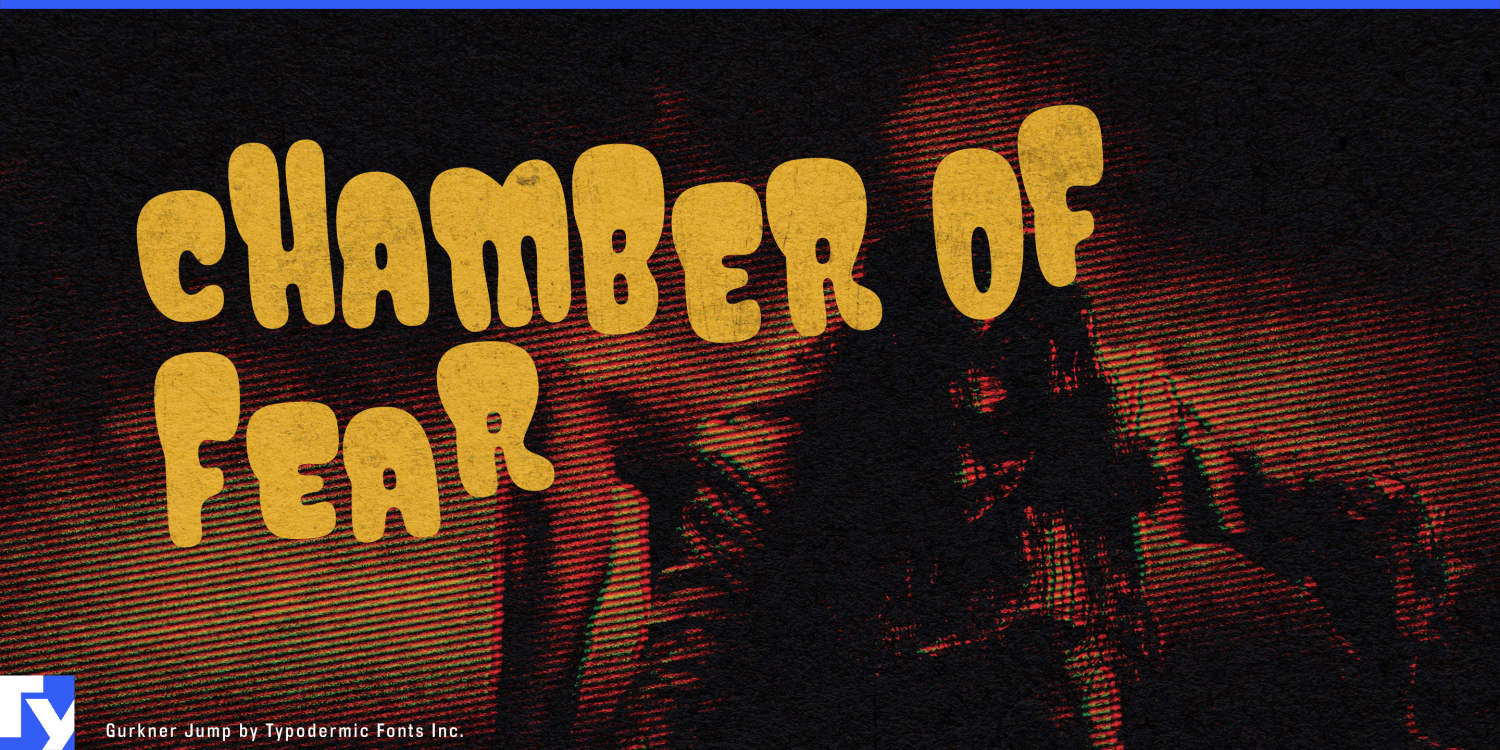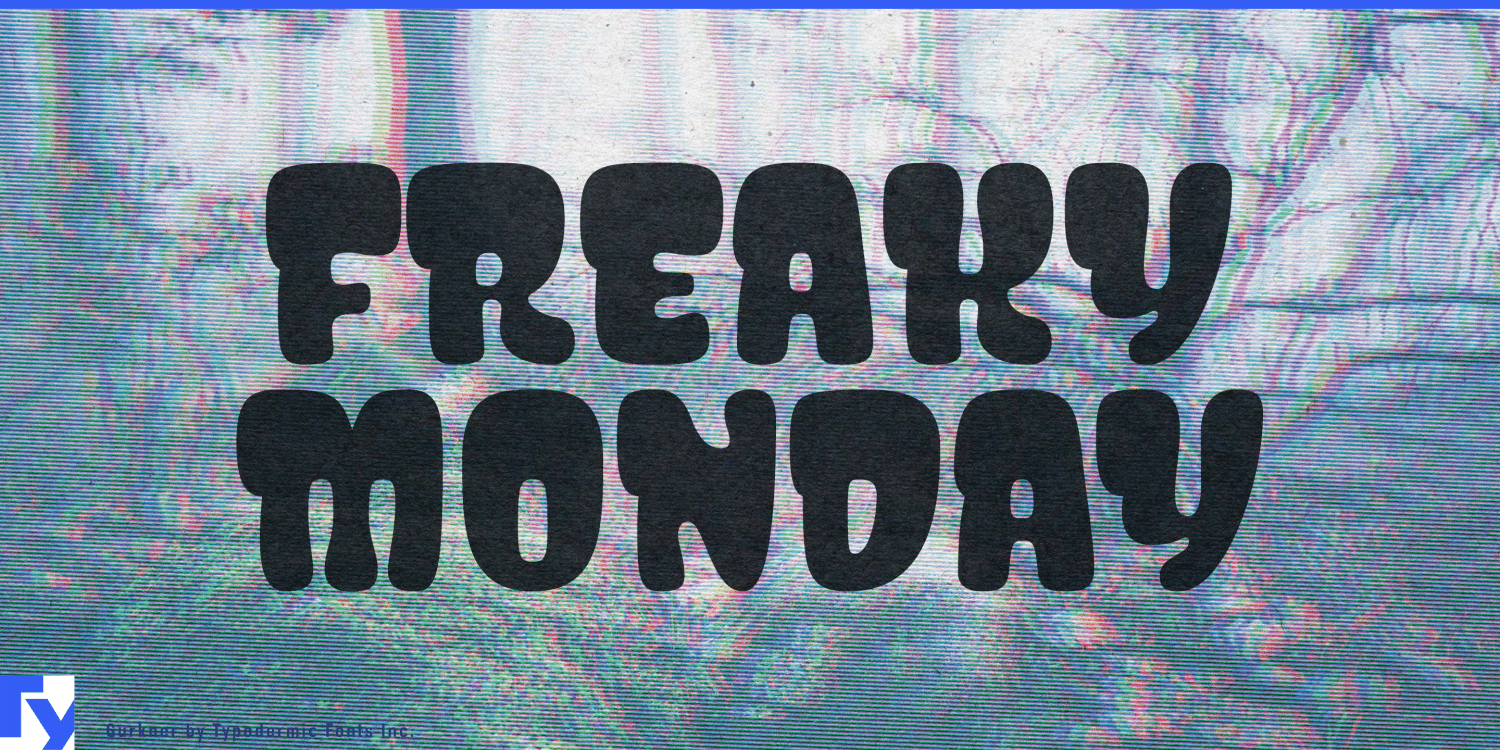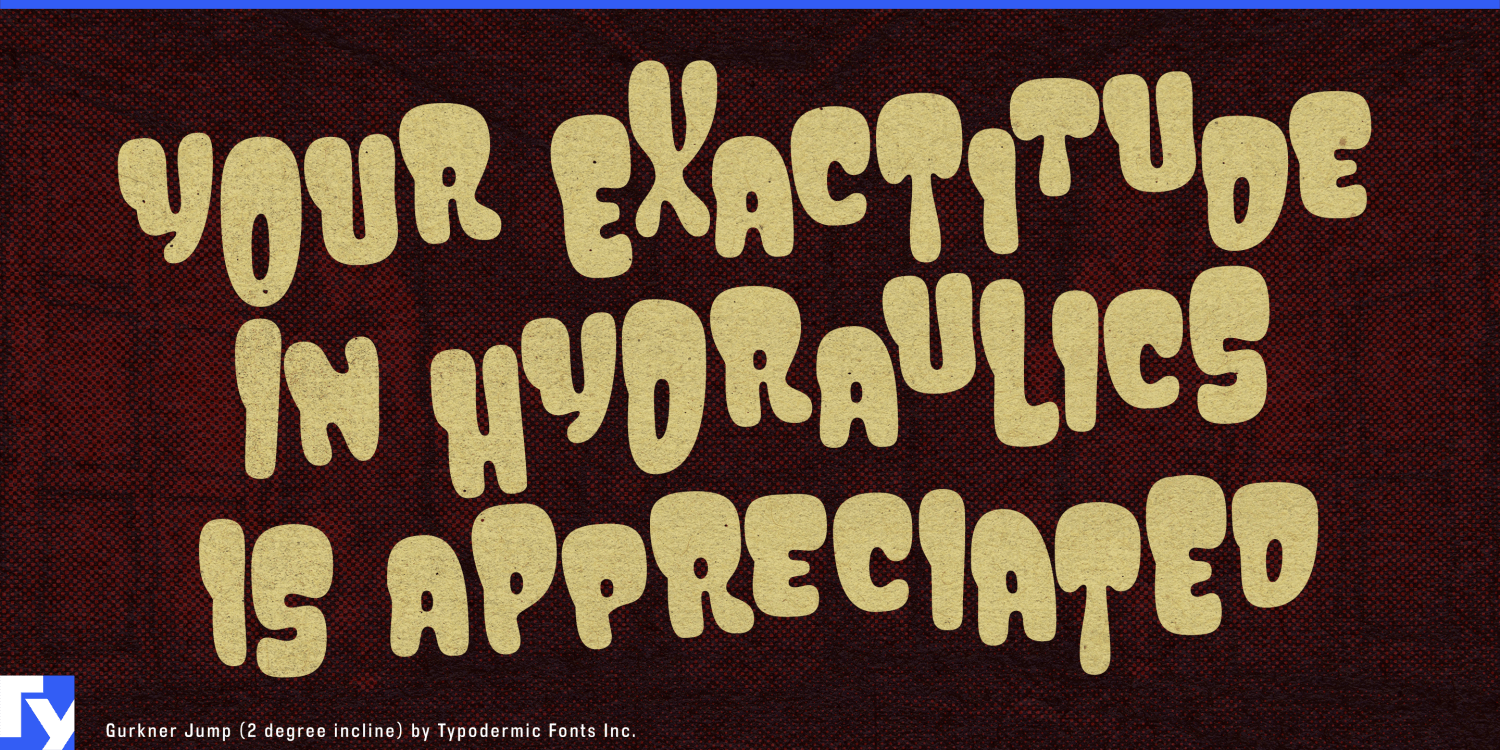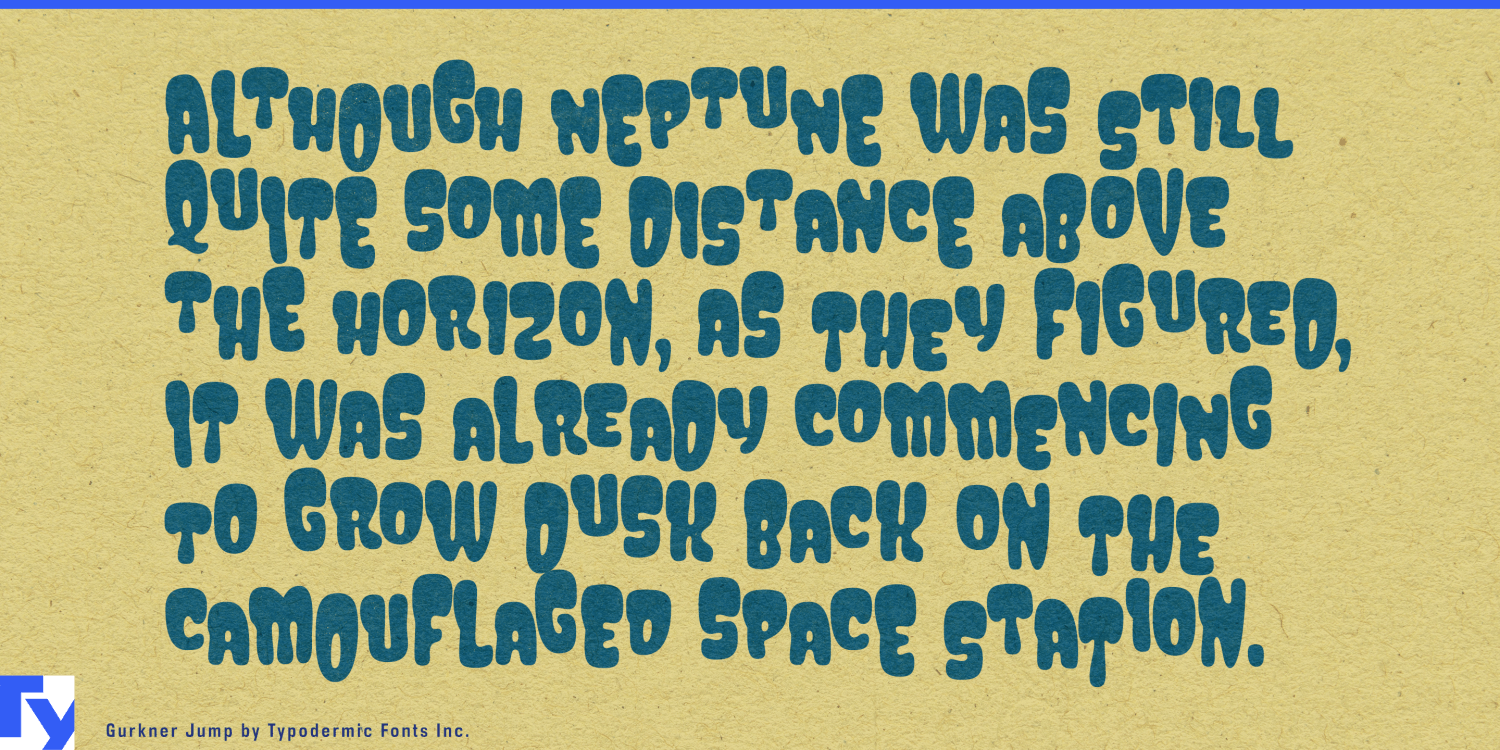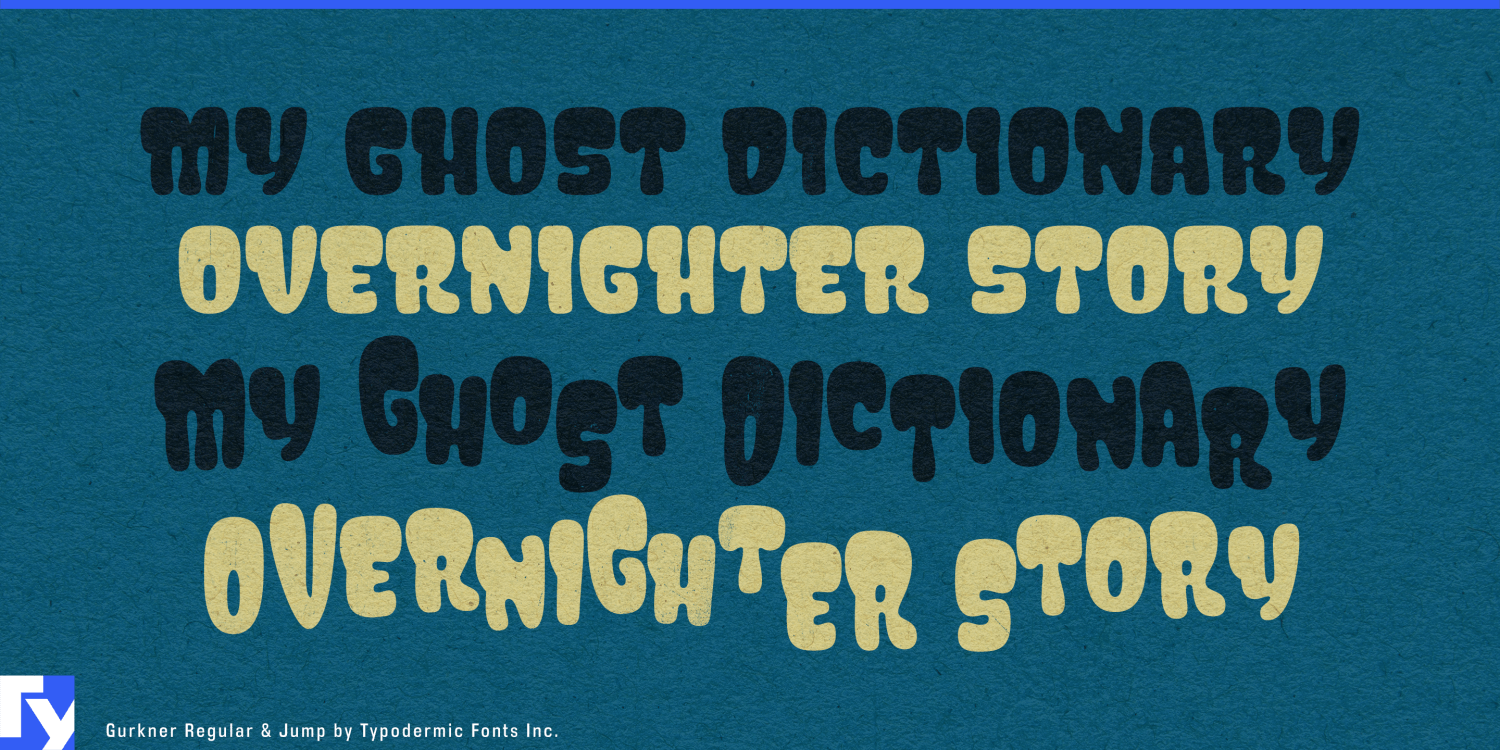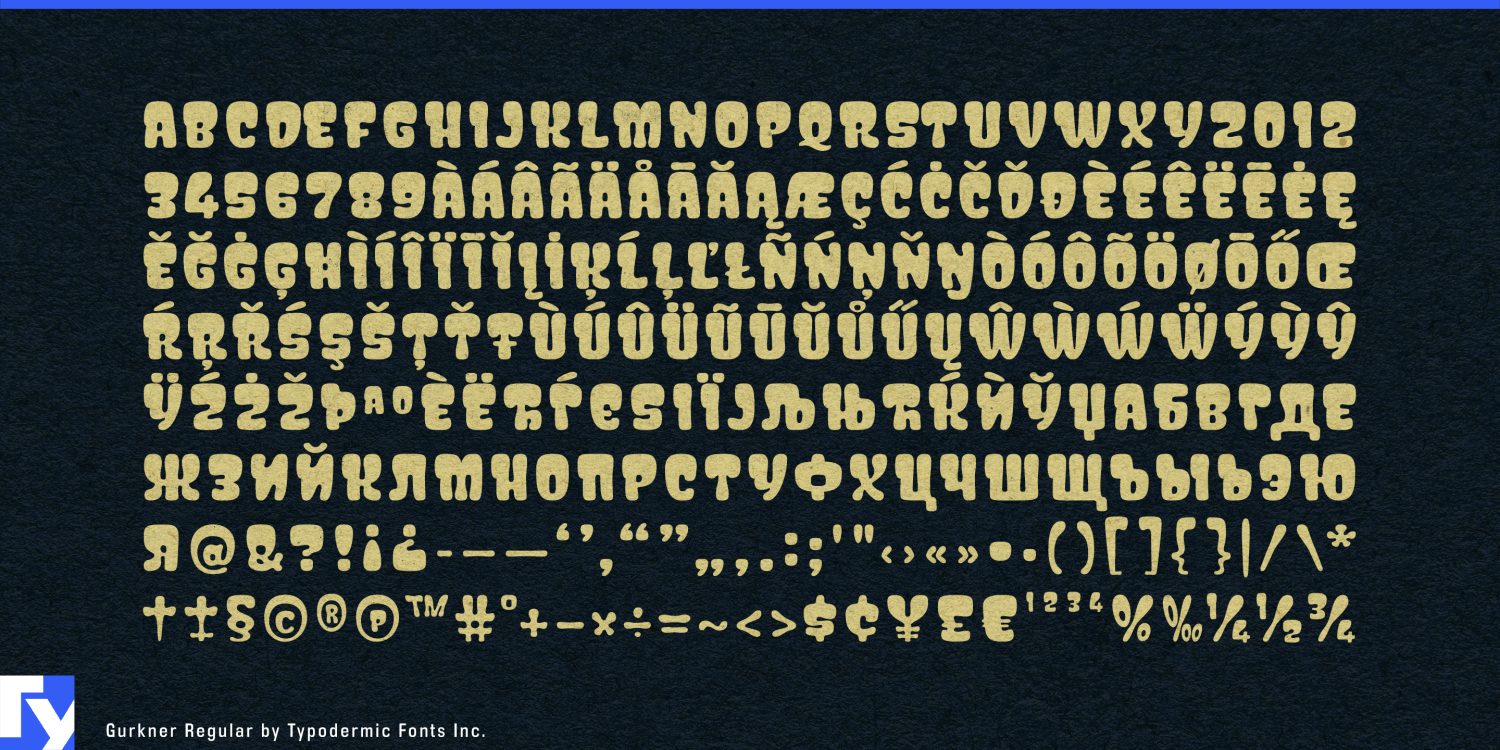
Get ready for a typographic haunting like no other with Gurkner, the font that’s more than just letters—it’s a paranormal party on your page! This isn’t your grandmother’s spooky typeface; it’s a shape-shifting specter…